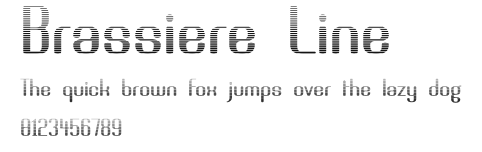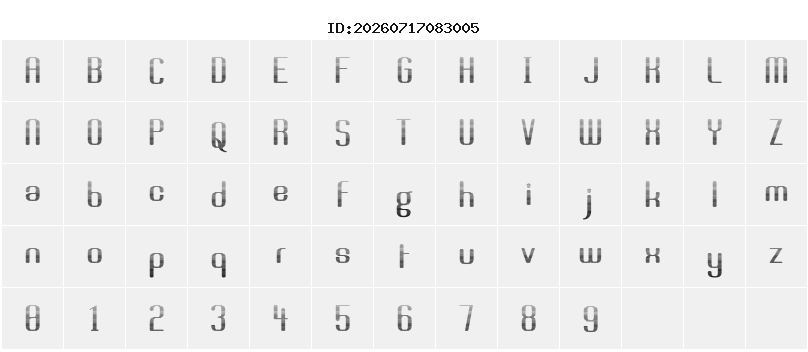
• Font Name: Brassiere Line
• Font ID: Brassiere Line
• Full Font Name: Brassiere Line
• PostScript Name: BrassiereLine
• Character Count: 225
About Brassiere Line.ttf
Brassiere Line.ttf is a modern, elegant sans-serif font designed for ultimate readability and visual harmony. Perfect for branding, headlines, web design, and print materials.